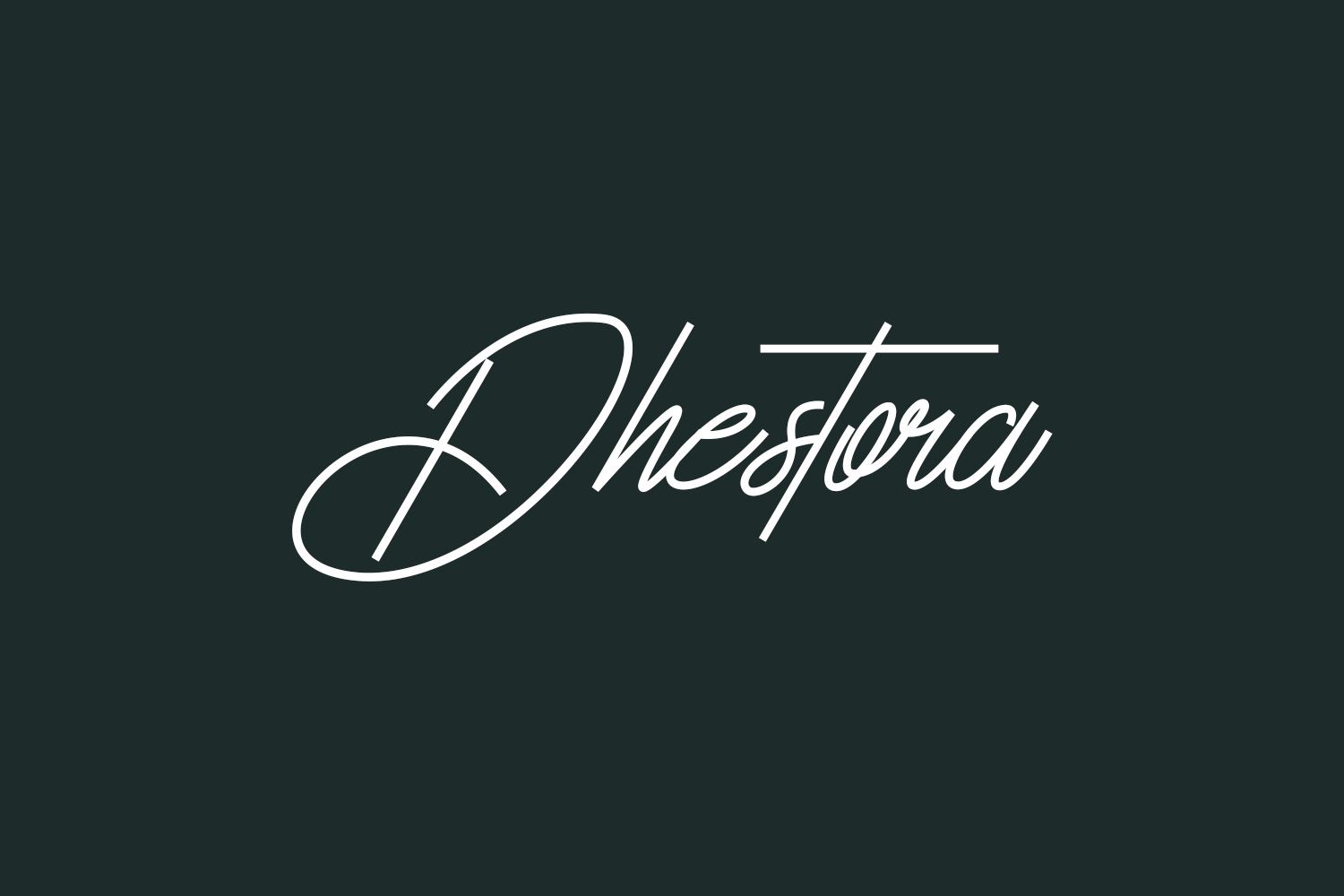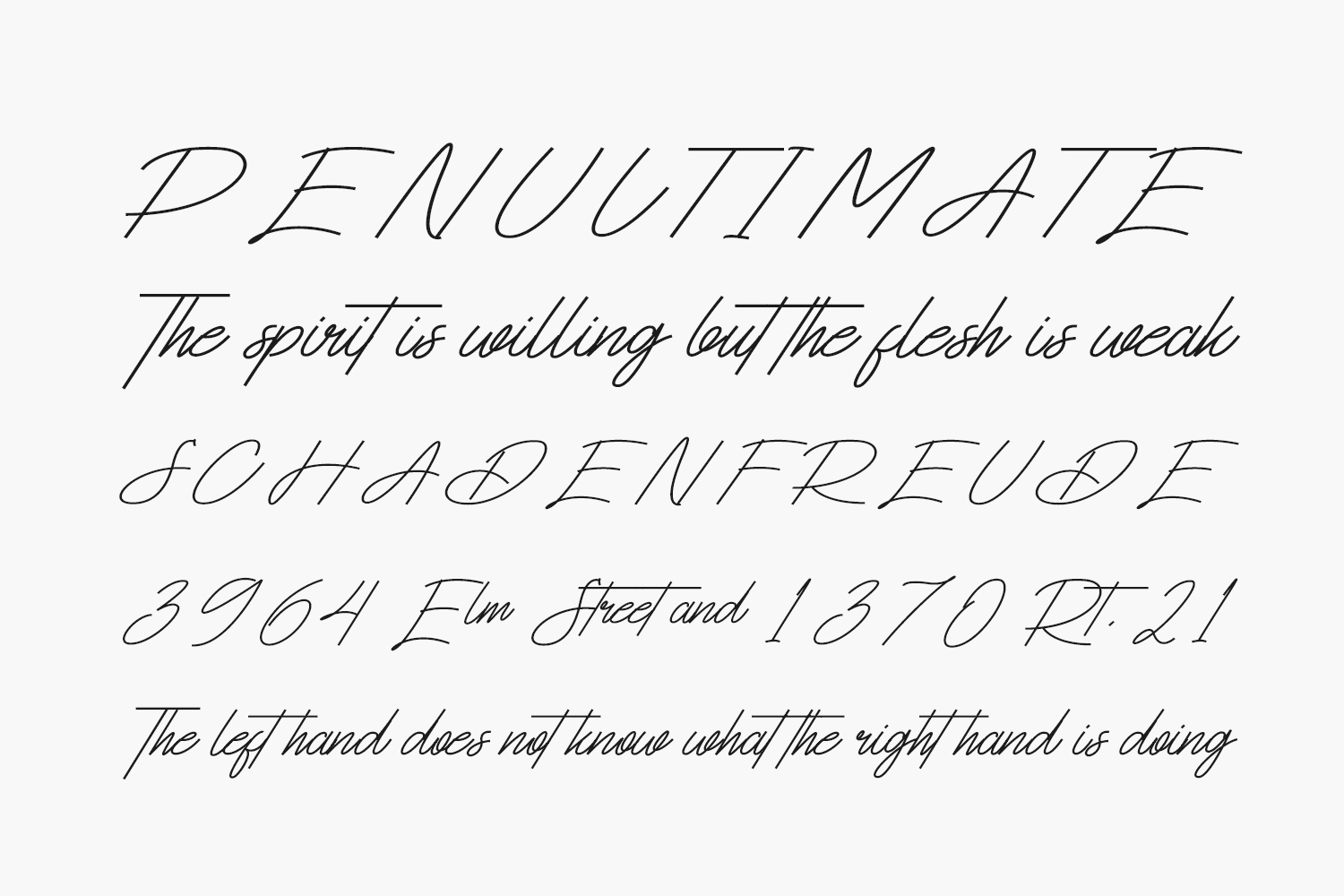
Dhestora Free Font is cursive and elegant handwritten font. It looks beautiful on a variety of designs requiring a personalized style, such as wedding invitations, thank you cards, weddings, greeting cards, logos, and so on. Dhestora Free Font was designed by Jadatype and is free for personal use only. Please purchase the full version for commercial use.